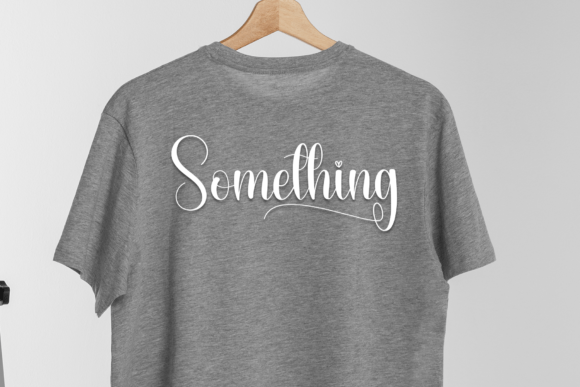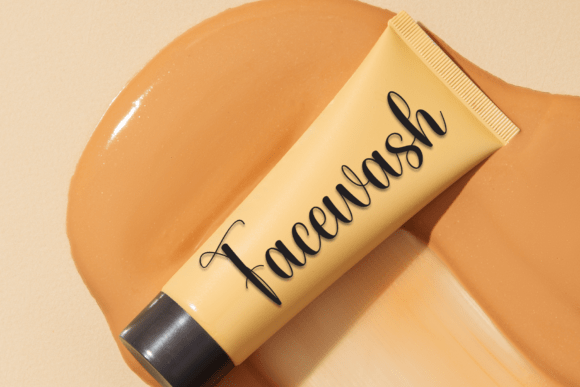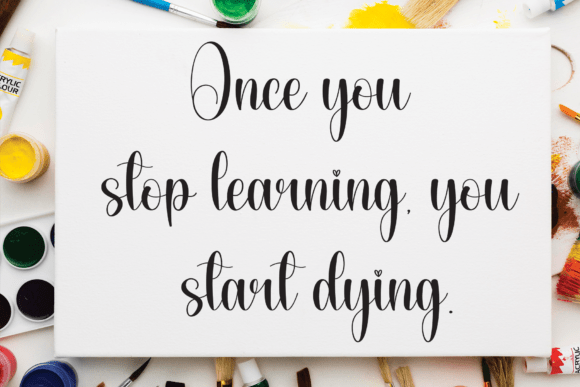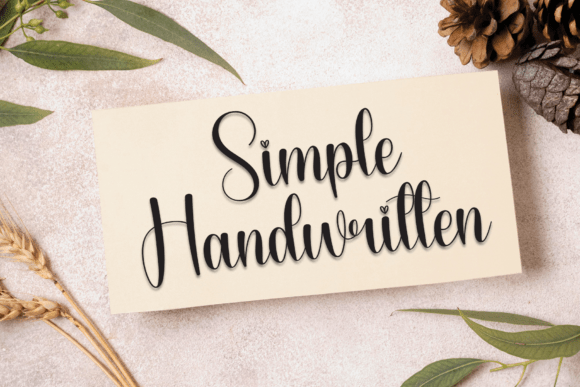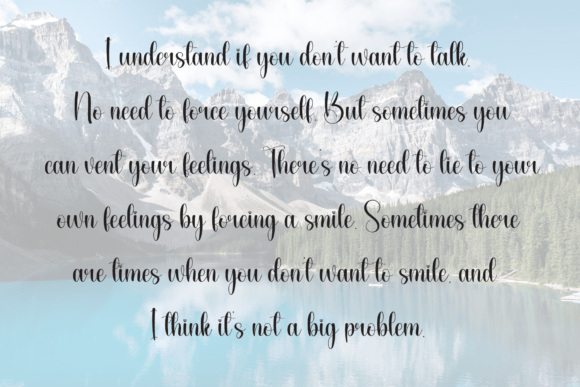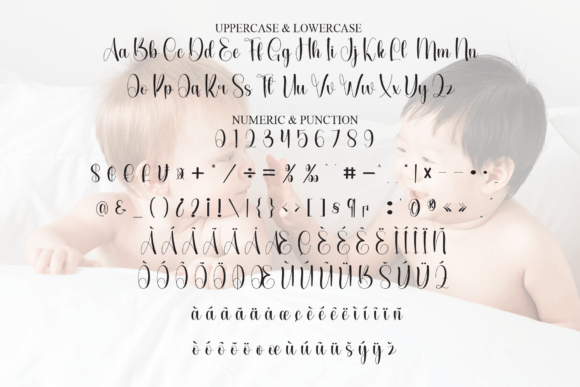
Babyish Harmony Font: Elevate Your Designs with a Touch of Elegance and Playfulness
In the world of typography, fonts play a crucial role in conveying the tone and personality of a design. For designers and crafters seeking a typeface that embodies both modern sophistication and a playful charm, Babyish Harmony Font stands out as an exceptional choice. This stylish handwritten script font is meticulously crafted to bring a personal feel to any project, making it an ideal selection for a wide range of applications.
Unveiling the Unique Characteristics of Babyish Harmony Font
Babyish Harmony Font is distinguished by its fluid strokes and charming curves, which collectively contribute to its unique aesthetic. This font seamlessly blends modern elegance with a playful touch, creating a visually appealing and engaging appearance. The fluidity of its strokes not only adds a dynamic feel but also ensures readability, making it versatile for various design needs.
Applications of Babyish Harmony Font
The versatility of Babyish Harmony Font makes it suitable for a myriad of design projects. Some of the key applications include:
- Logos: Create a memorable brand identity with a logo that exudes both sophistication and approachability.
- Packaging: Elevate your product packaging with a design that combines elegance and playfulness, ensuring your product stands out on the shelves.
- Invitations: Whether it’s a wedding invitation, birthday party, or baby shower, Babyish Harmony Font adds a touch of warmth and personalization.
The Benefits of Using Babyish Harmony Font
Incorporating Babyish Harmony Font into your designs comes with numerous benefits:
- Warmth: Adds a cozy and inviting feel to your designs, making them more relatable to your audience.
- Sophistication: Despite its playful nature, the font maintains a level of elegance, making it suitable for professional projects.
- Creativity: The unique blend of modern and playful elements inspires creativity, allowing designers to explore new and innovative design concepts.
To make the most out of Babyish Harmony Font, consider the following tips:
- Pairing: Experiment with font pairings to enhance the overall aesthetic of your design. Babyish Harmony Font works well with both serif and sans-serif fonts.
- Color Scheme: Choose a color palette that complements the tone of your design. Soft pastels and muted tones can enhance the playful aspect, while bold colors can add a modern twist.
- Spacing: Pay attention to letter spacing and line height to ensure readability and to maintain the fluid feel of the font.
Babyish Harmony Font is a stylish and versatile typeface that can elevate any design project. Its unique blend of modern elegance and playful charm makes it an excellent choice for designers and crafters looking to add a personal touch to their work. Whether you’re creating logos, packaging, or invitations, Babyish Harmony Font is sure to bring warmth, sophistication, and creativity to every project.
Embrace the beauty and versatility of Babyish Harmony Font in your next design venture. Explore its capabilities and discover how this stylish handwritten script font can transform your designs into visually stunning and engaging pieces that capture the essence of your message.